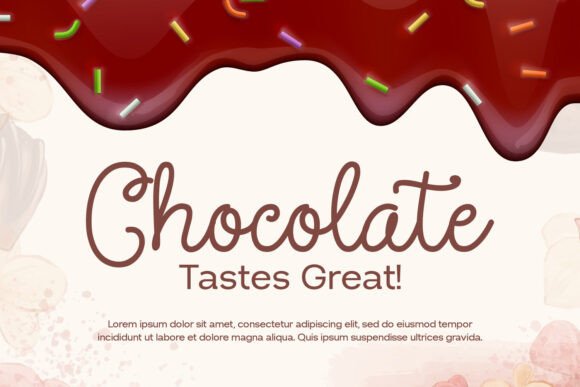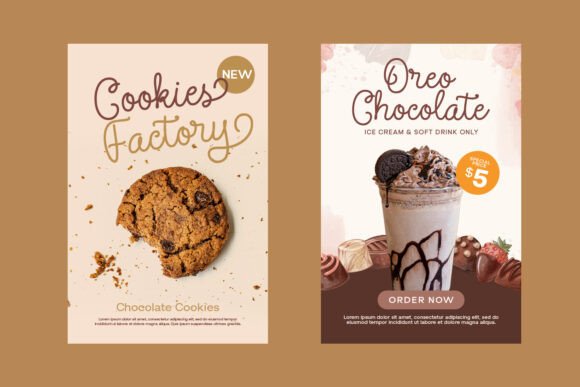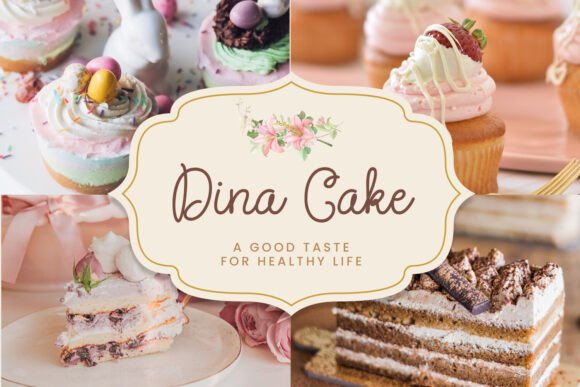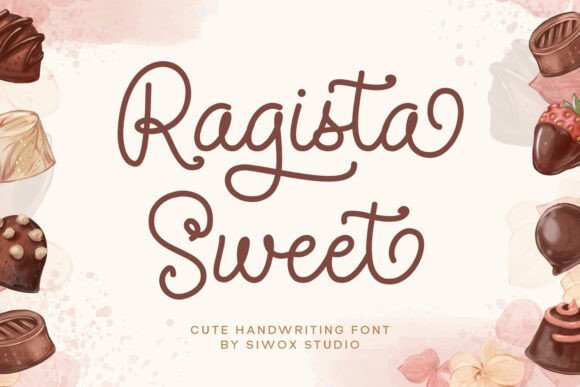
Introduction to Ragista Sweet Font
Ragista Sweet is a cute monoline script font.
The simplicity and elegance of this font ensures it stands out in logos, labels, and promotional materials, adding a touch of sweetness and ease of understanding to any design With a modern yet timeless feel, Ragista Sweet effectively conveys a sense of love and care, making it perfect for brands that focus on Food & Beverage products and also suitable for greeting card designs.
Key Features of Ragista Sweet Font
Why Choose Ragista Sweet Font?